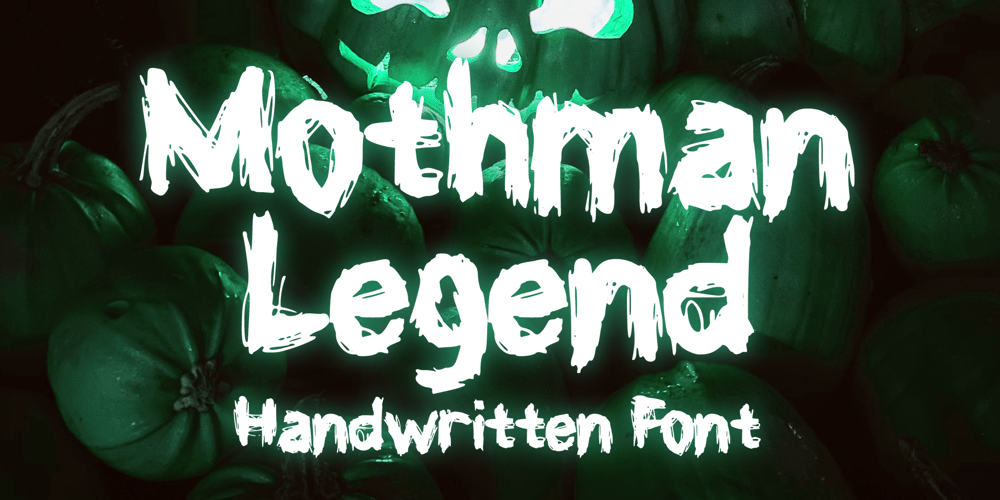
Mothman Legend Font Family was designed by Gabriel Valentinus and published by Mvmet. Mothman Legend contains 1 styles and family package options. Mothman Legend is a grunge spooky font, inspired by 90s horror movies. It will be perfect for your horror and Halloween-themed needs! You can use it for anything ranging from t-shirts and clothing, to your book designs, Halloween party needs, greeting cards, stickers, posters, banners, or anything that needs a cool touch. Try it to create fabulous designs and feel the gothic and Halloween vibes with it!